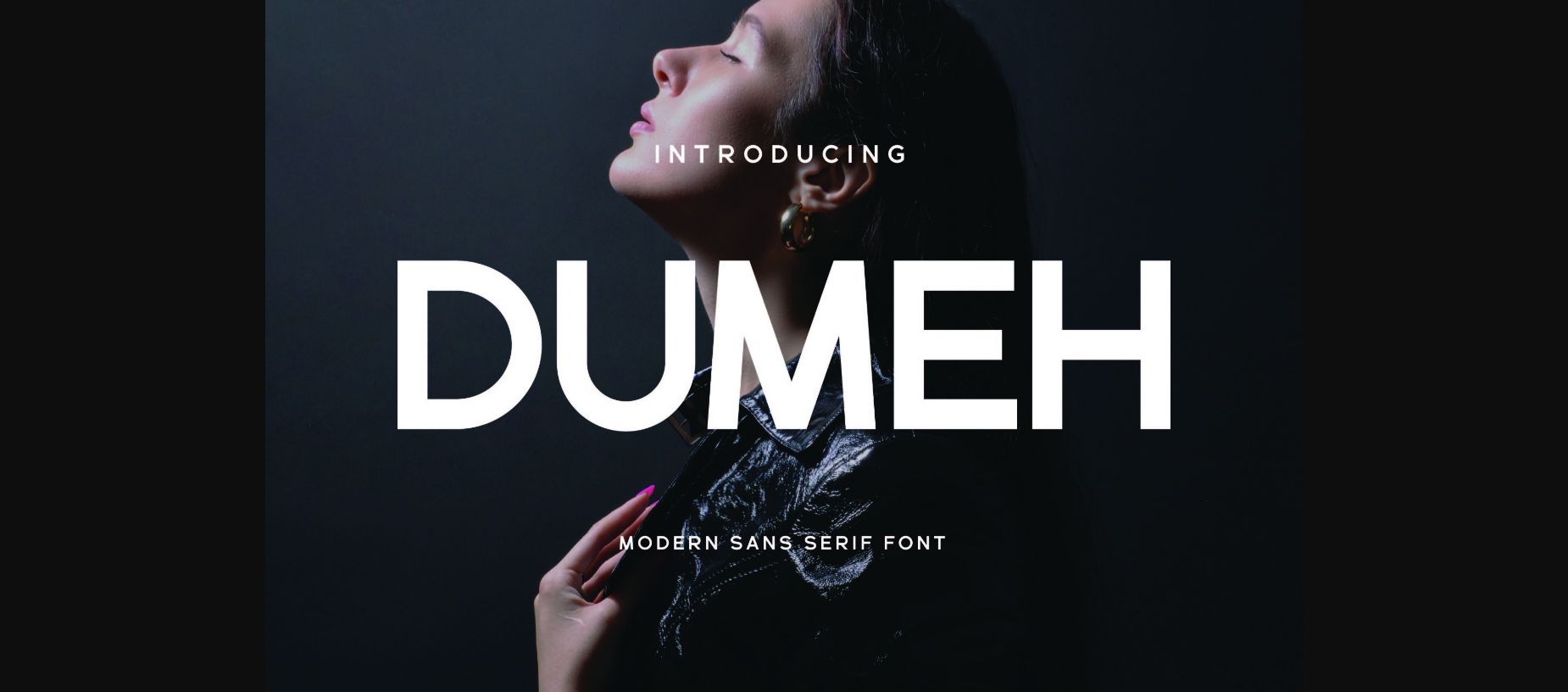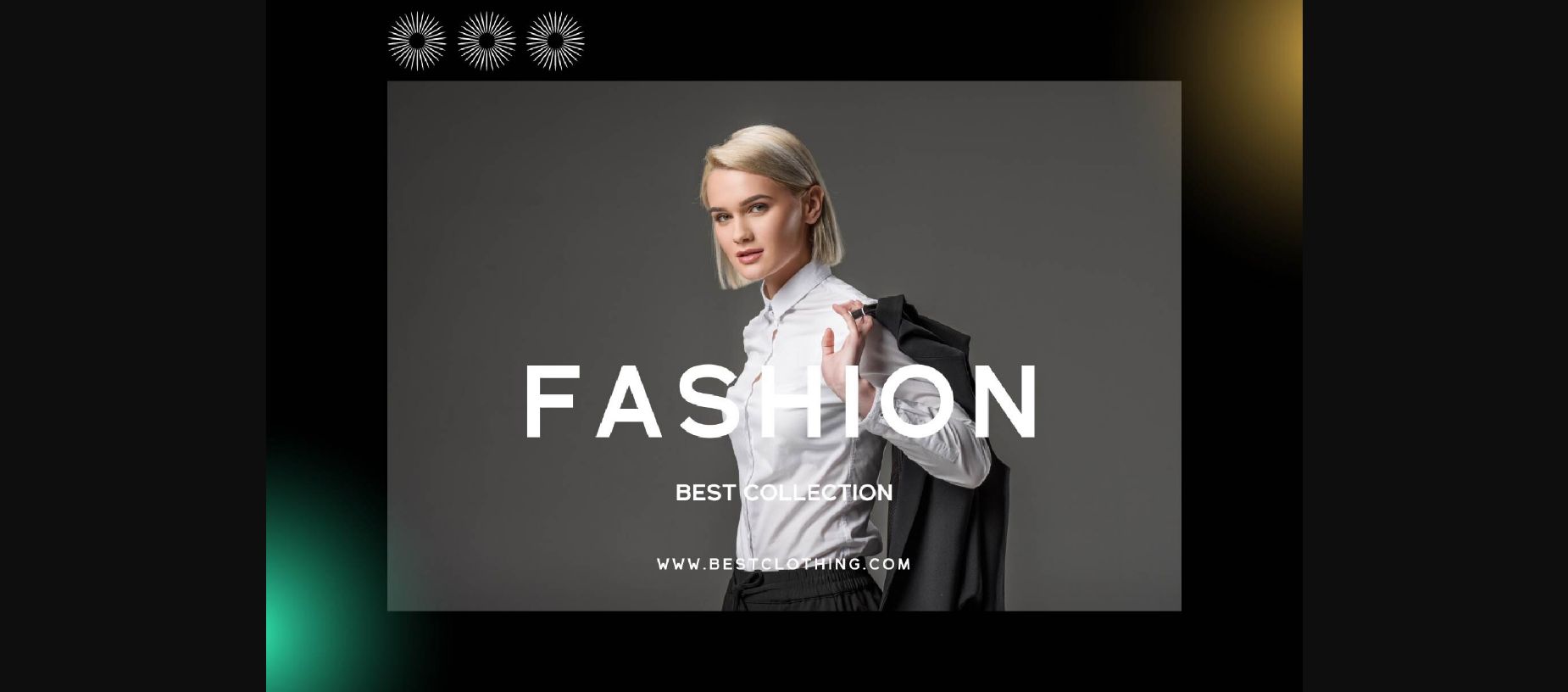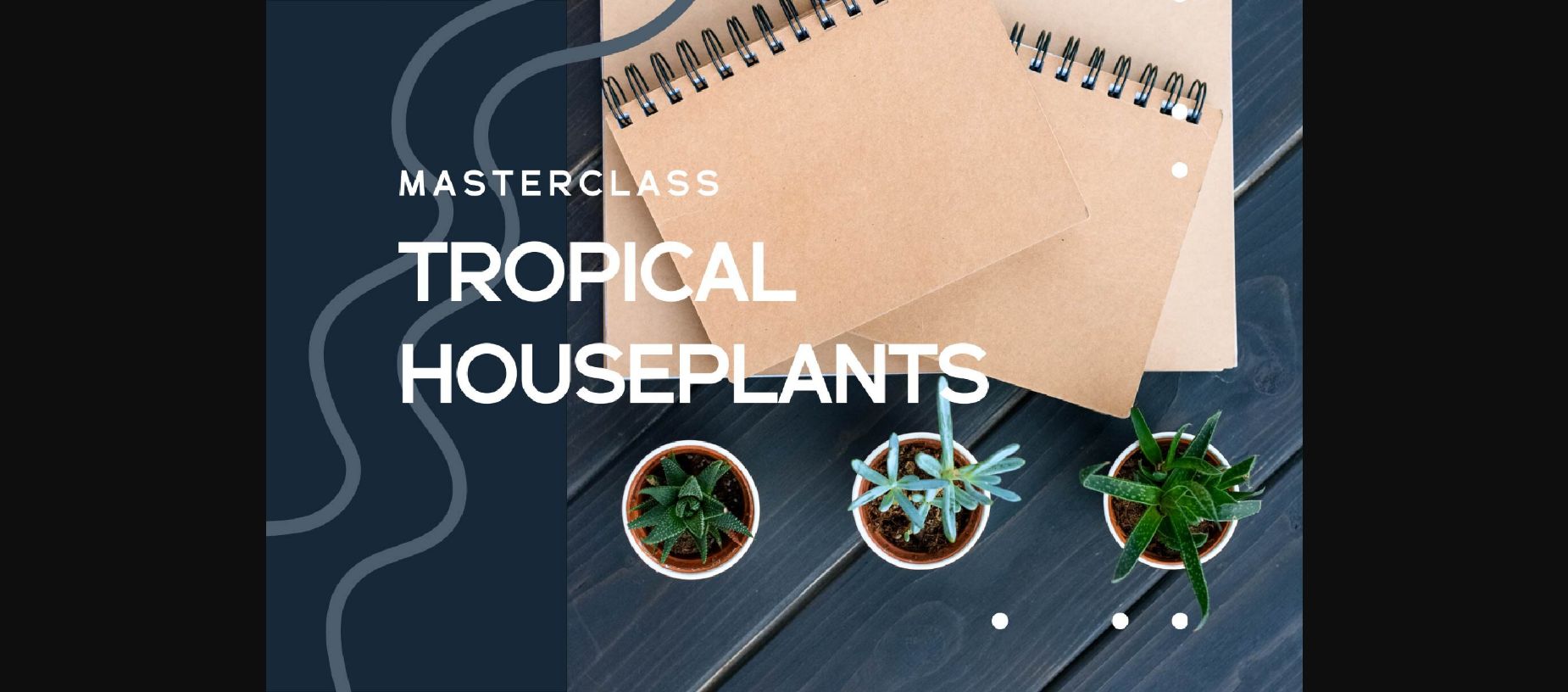
About Dumeh Font
Dumeh is a sans serif font, inspired by the famous minimalist logo perfect for the purposes of designing templates, brochures, videos, advertising branding, logos, invitations, layout design, elegant crafting, beauty designs and much more.